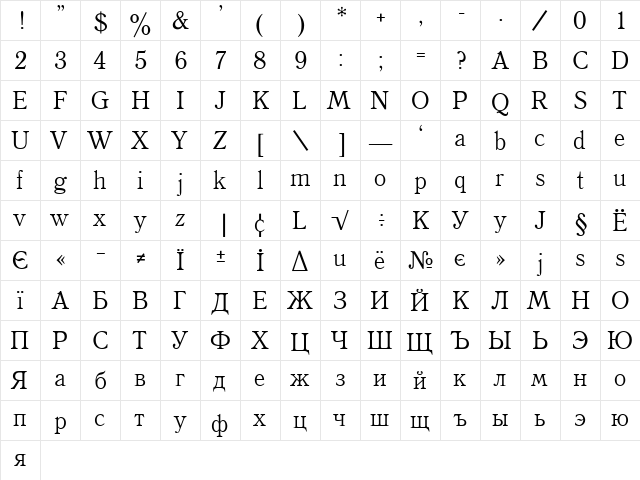
QuantAntiqua Medium
Design Context for QuantAntiqua Typeface
QuantAntiqua takes a measured approach to typography — its balanced proportions and neutral character make it a reliable workhorse for both digital and print work.